Fino Sans in Barcelona play
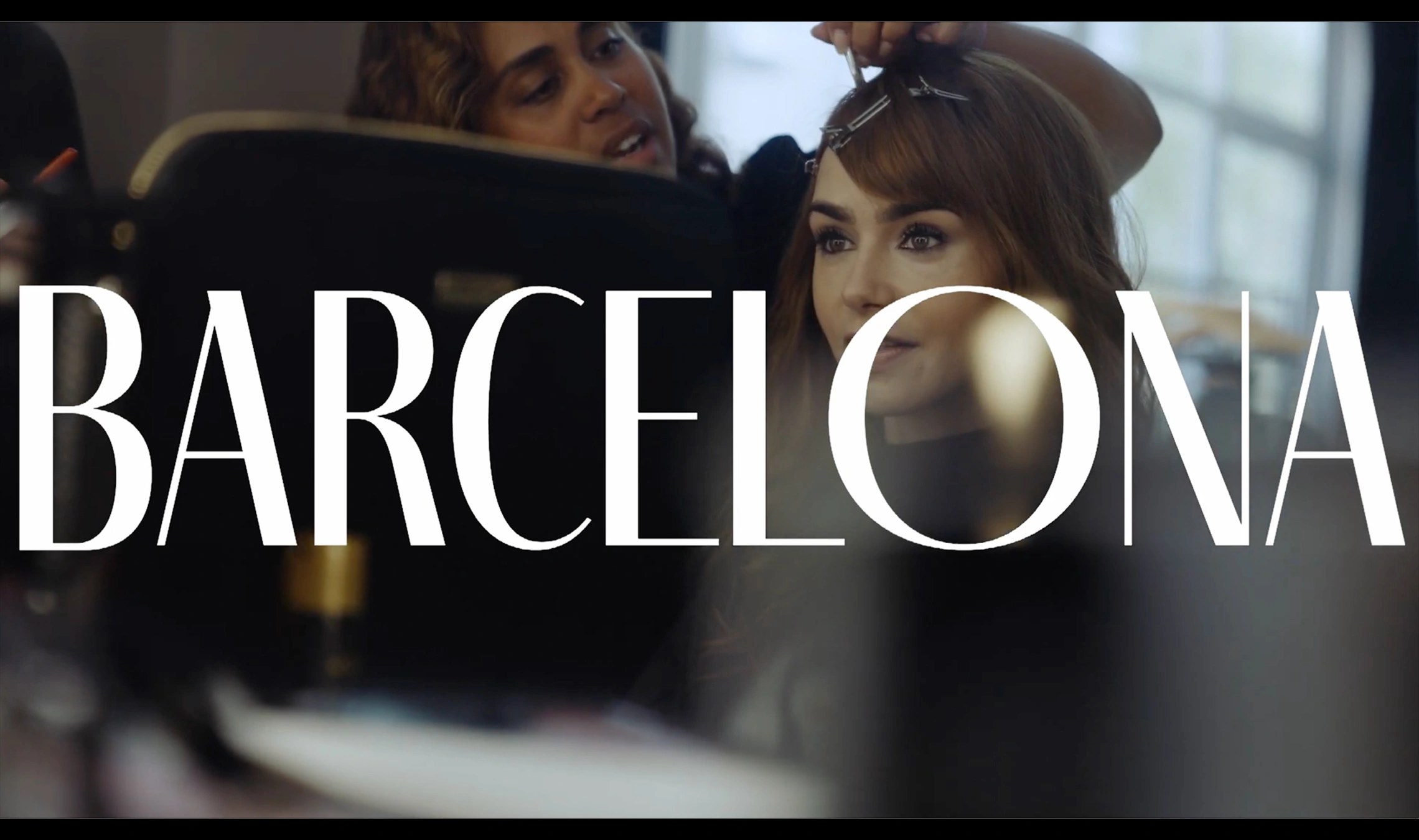
Summary. Romanesque capitals were varied endlessly. The letters were reversed, joined together to make ligatures and were intertwined, small examples being nested – placed inside or alongside the capitals – and both letters and the spaces between them would often be widened or narrowed, often to fit text into the space available, but sometimes for no apparent reason. The most intriguing of these variations is the seemingly random positioning of Insular letterforms and uncials in a text (6a, b).